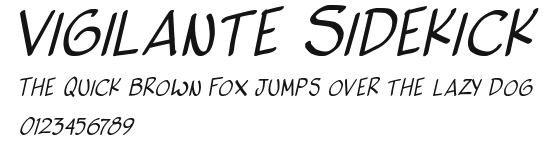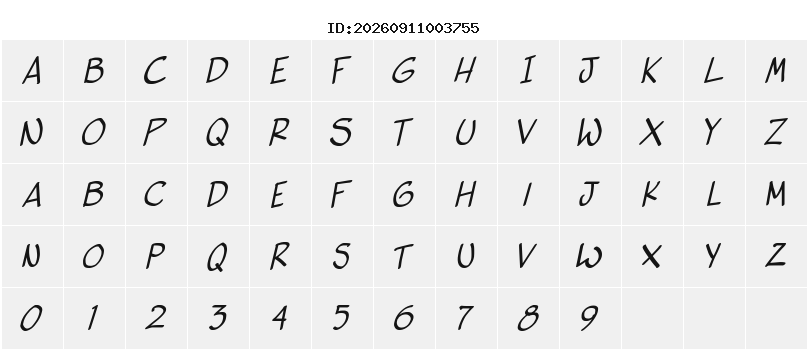
Vigilante Sidekick Preview
• Font Name: Vigilante Sidekick
• Font Style: Italique
• Font ID: Vigilante Sidekick Italic:Version 1.00
• Full Font Name: Vigilante Sidekick Italic
• Version: Version 1.00 August 5, 2008, initial release
• PostScript Name: VigilanteSidekick-Italic
About Vigilante Sidekick.ttf
Vigilante Sidekick.ttf is a modern, elegant sans-serif font designed for ultimate readability and visual harmony. Perfect for branding, headlines, web design, and print materials.